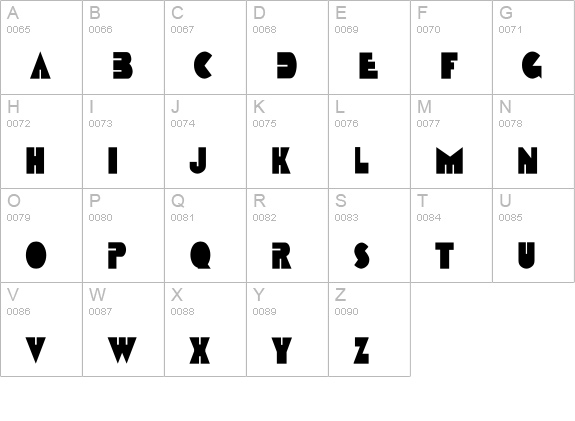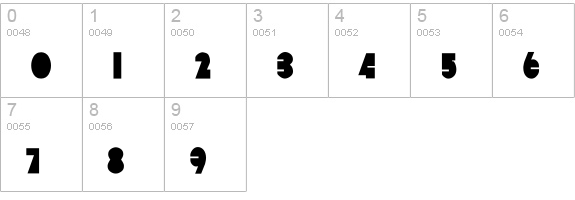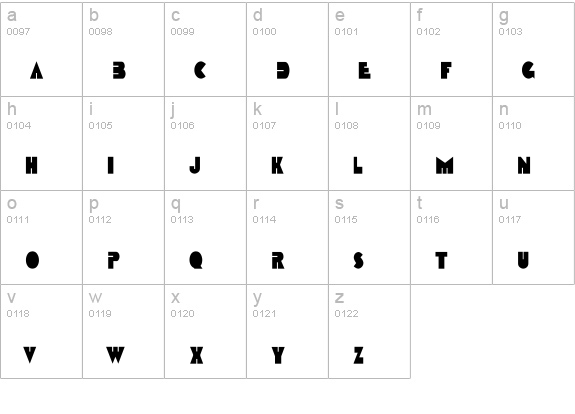
Devendra Cn Font Details
Devendra Cn is a stylish and modern font that adds a touch of elegance to any design project. With its clean lines and contemporary look, this font is perfect for creating eye-catching logos, headings, and other graphical elements. The smooth curves and sharp angles of Devendra Cn give it a unique and sophisticated appearance that is sure to stand out. One of the best things about Devendra Cn is that it is completely free to use. Whether you're a professional designer or just looking to add a little flair to your personal projects, you can download Devendra Cn for free at FontsMarket.com. This means that you can enjoy all the benefits of this beautiful font without having to spend a penny. So why wait? Download Devendra Cn today and see how it can elevate your designs to the next level.